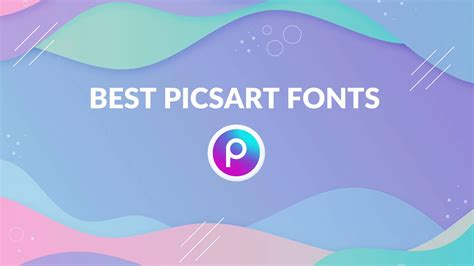
Add Fonts To PicsArt: A Simple Guide
Adding cool and unique fonts to your PicsArt projects can seriously level up your designs, guys. Whether you’re creating eye-catching social media posts, designing a stunning logo, or just having fun with photo editing, having the right font makes all the difference. This guide will walk you through everything you need to know about how to add fonts to PicsArt, making your creative process smoother and your final results even more impressive. Let’s dive in!
Why Add Custom Fonts to PicsArt?
First off, you might be wondering, “Why bother adding fonts when PicsArt already has a bunch?” Well, while PicsArt does offer a decent selection of fonts, they can sometimes feel a bit generic. Adding your own custom fonts lets you inject your unique style and brand identity into your projects. Think about it: a consistent font can make your brand instantly recognizable. Plus, using custom fonts helps you stand out from the crowd and gives your designs that extra oomph .
Brand Consistency: For businesses and influencers, maintaining a consistent brand image is crucial. Using the same fonts across all your visuals helps build brand recognition and reinforces your identity. Custom fonts ensure that your PicsArt designs align perfectly with your overall branding strategy.
Unique Style: Generic fonts can make your designs look like everyone else’s. By adding custom fonts, you can express your unique style and create designs that truly stand out. Whether you prefer elegant scripts, bold sans-serifs, or quirky display fonts, the possibilities are endless.
Creative Freedom: Having a wider range of fonts at your disposal gives you more creative freedom. You can experiment with different typography styles to find the perfect match for your project. This allows you to create more visually appealing and engaging designs.
Access to Specialized Fonts: Certain projects may require specialized fonts, such as those with specific language support or unique stylistic features. Adding custom fonts ensures that you have the right tools to tackle any design challenge.
Finding the Right Fonts
When choosing fonts, think about the overall style and purpose of your design. A playful, handwritten font might be perfect for a social media post, while a clean, sans-serif font might be better for a professional presentation. Also, make sure the font is legible and easy to read, especially if you’re using it for body text.
Step-by-Step Guide: Adding Fonts to PicsArt on Mobile
Alright, let’s get to the good stuff: how to actually add those fonts to PicsArt on your mobile device. The process is slightly different for Android and iOS, so I’ll cover both.
On Android:
1. Download the Font: Find a font you like from one of the resources mentioned above and download the TTF or OTF file to your Android device. Usually, it will be downloaded in a ZIP file. You might need to extract it using a file manager app.
2. Locate the Font File: Use a file manager app (like Files by Google or ES File Explorer) to find the downloaded font file. It’s usually in your Downloads folder.
3. Move the Font to PicsArt Fonts Folder (If It Exists): Sometimes PicsArt creates a fonts folder. If you find a folder named “Fonts” inside the PicsArt folder, move your downloaded font file into it. If you don’t see one, no worries, just proceed to the next step.
4. Open PicsArt: Launch the PicsArt app on your Android device.
5. Create or Open a Project: Start a new project or open an existing one where you want to add text.
6. Add Text: Tap on the “Text” tool in the bottom toolbar.
7. Access My Fonts: Type your text, then look for the font selection area. There should be an option like “My Fonts” or a similar tab. Tap on it.
8. Add Font: In the “My Fonts” section, you should see an “Add Font” option. Tap on it, and it will open your file manager.
Conclusion
Adding custom fonts to PicsArt is a fantastic way to elevate your designs and express your unique style. Whether you’re using Android or iOS, the process is relatively straightforward once you get the hang of it. By following the steps outlined in this guide and keeping the troubleshooting tips in mind, you’ll be able to add and use your favorite fonts in PicsArt with ease. So go ahead, guys, experiment with different fonts, and let your creativity shine! Remember, the right font can transform your designs from ordinary to extraordinary. Happy creating!